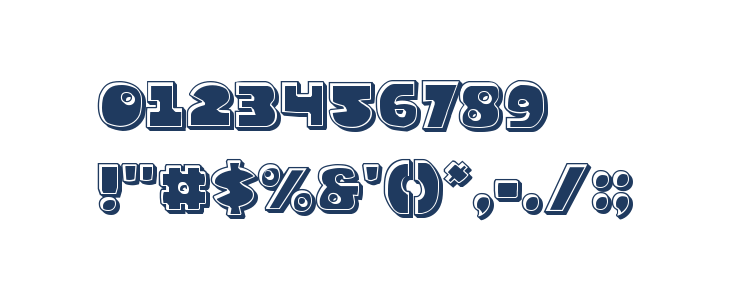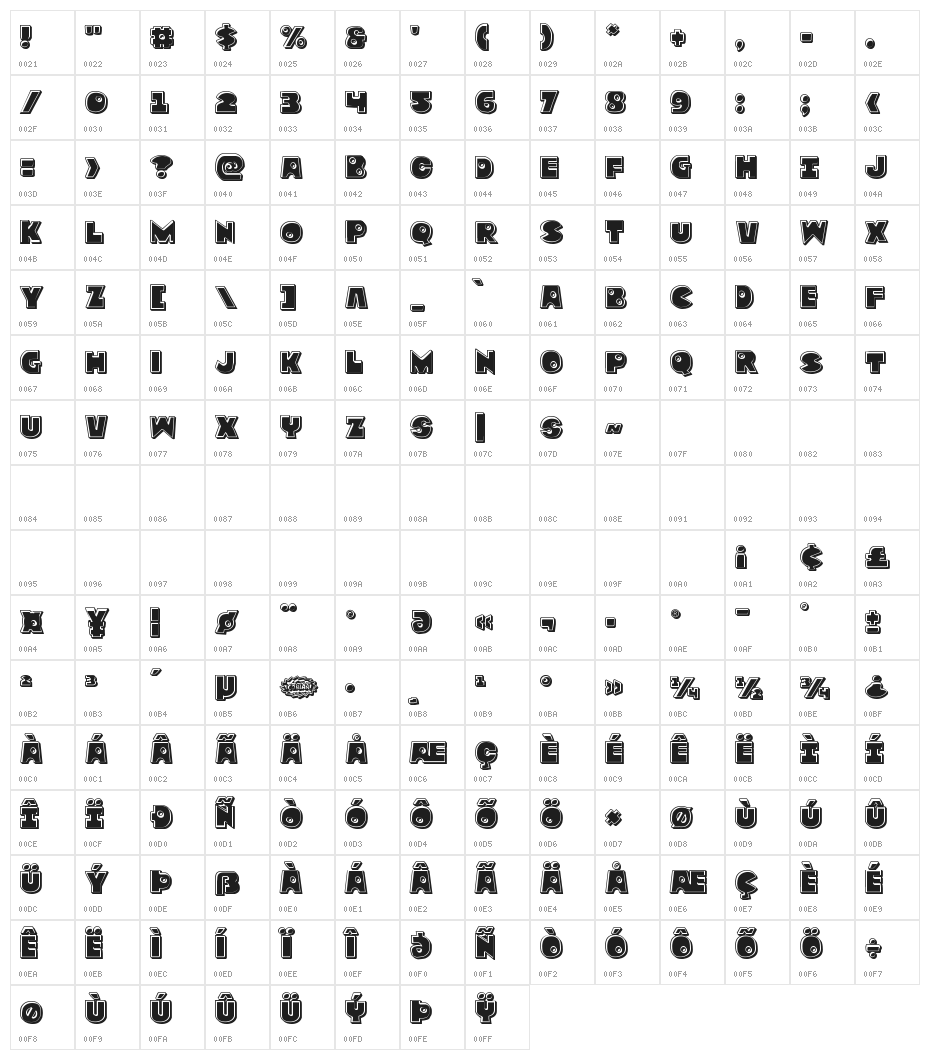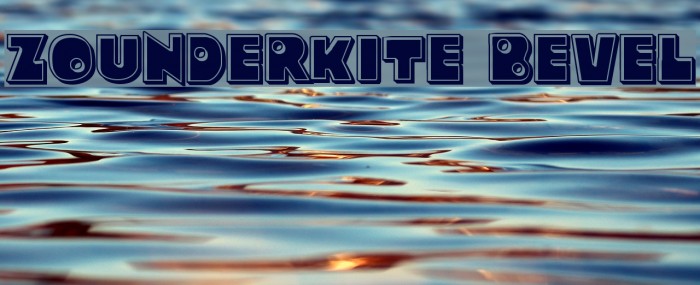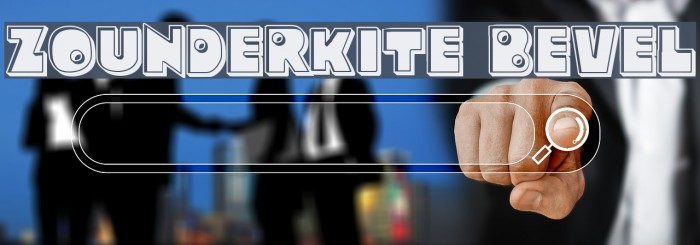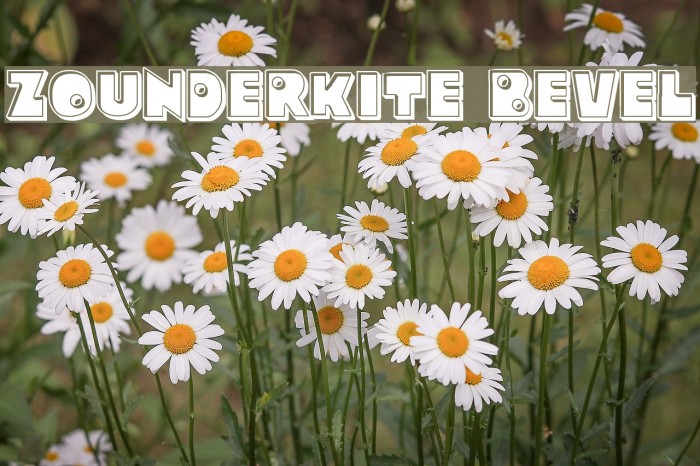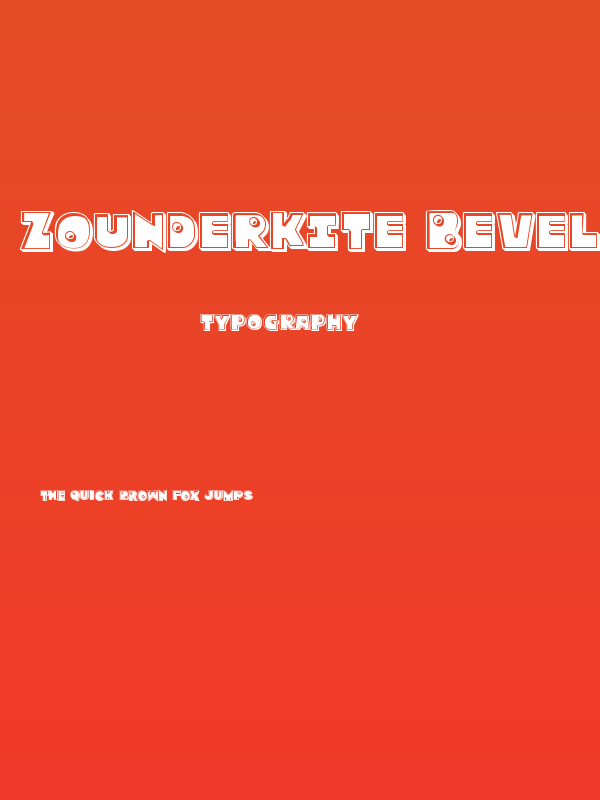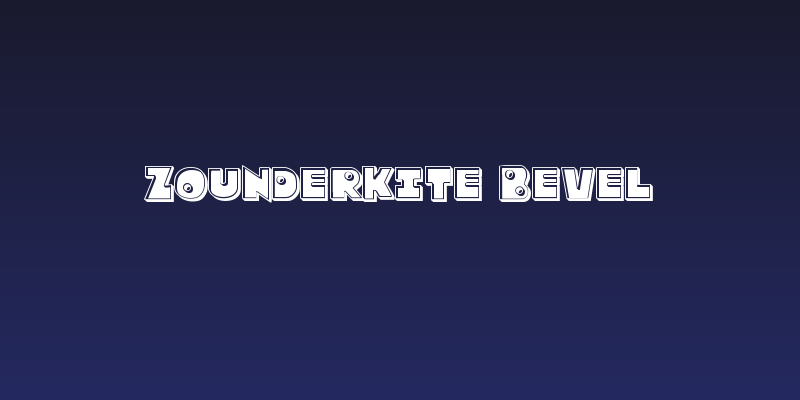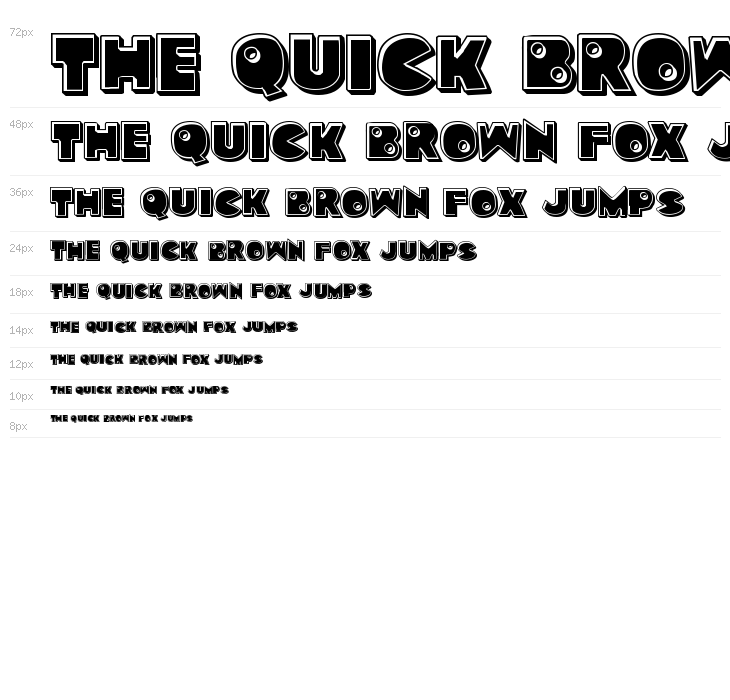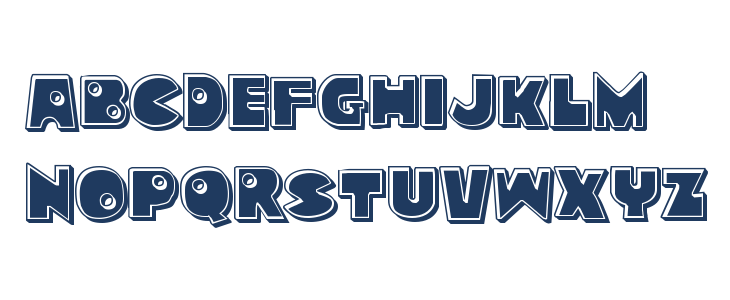
Zounderkite Bevel Font
Zounderkite Bevel Description
This font features a bold, eye-catching design with a three-dimensional bevel effect that gives it a striking appearance. The characters are blocky and robust, with thick strokes that create a strong visual impact. The edges are sharply defined, enhancing the boldness and making each letter stand out prominently. The font has a playful yet powerful aesthetic, suitable for designs that require a commanding presence. Its unique style is both modern and slightly retro, making it versatile for various creative applications.